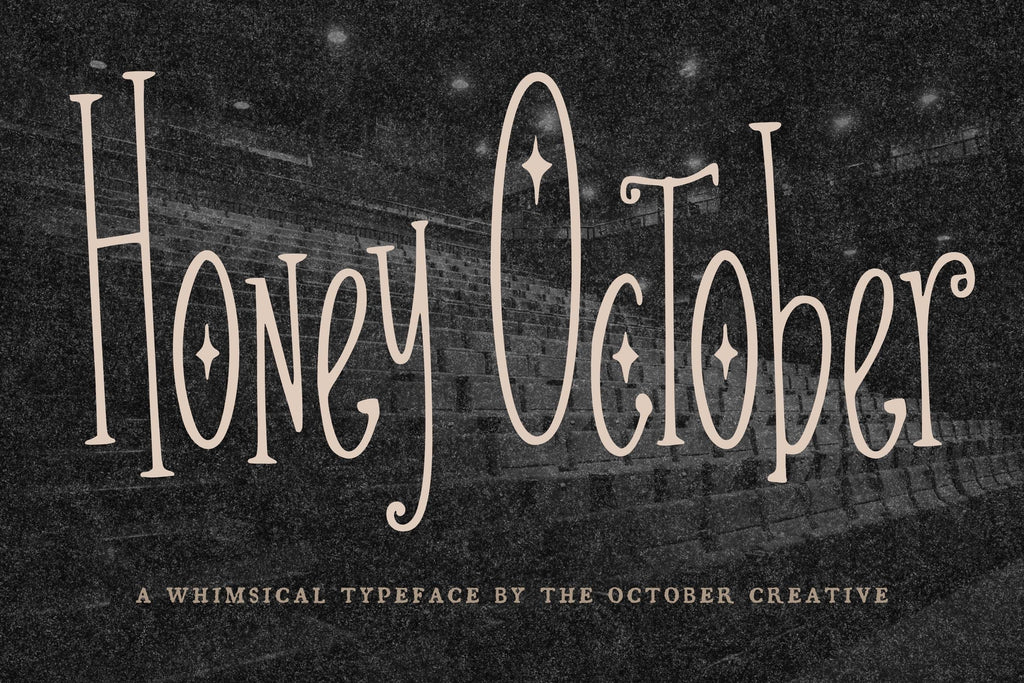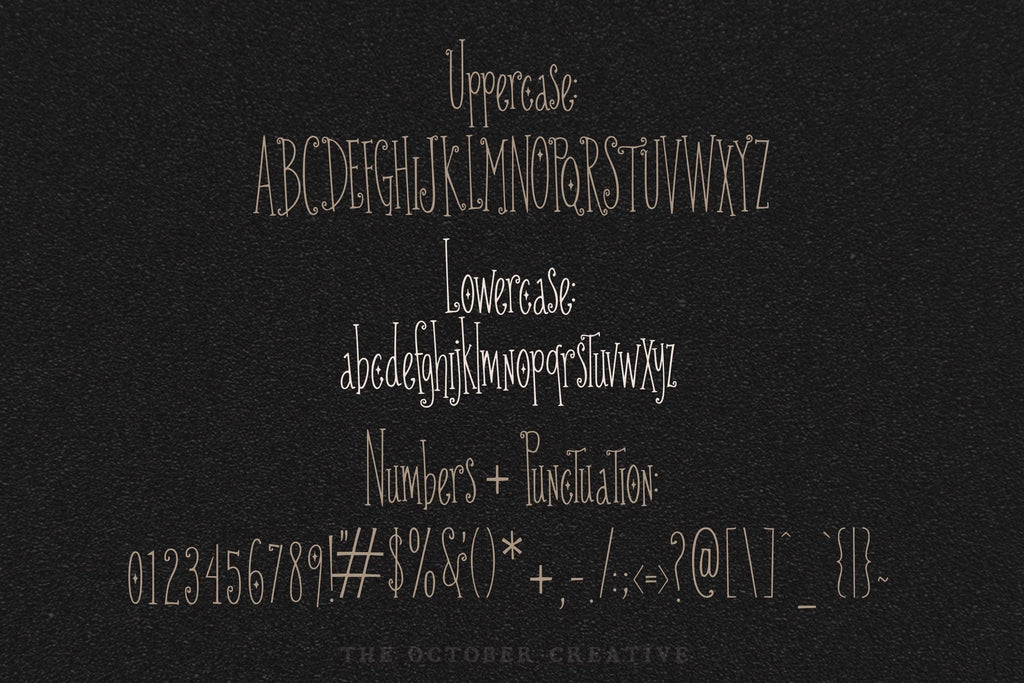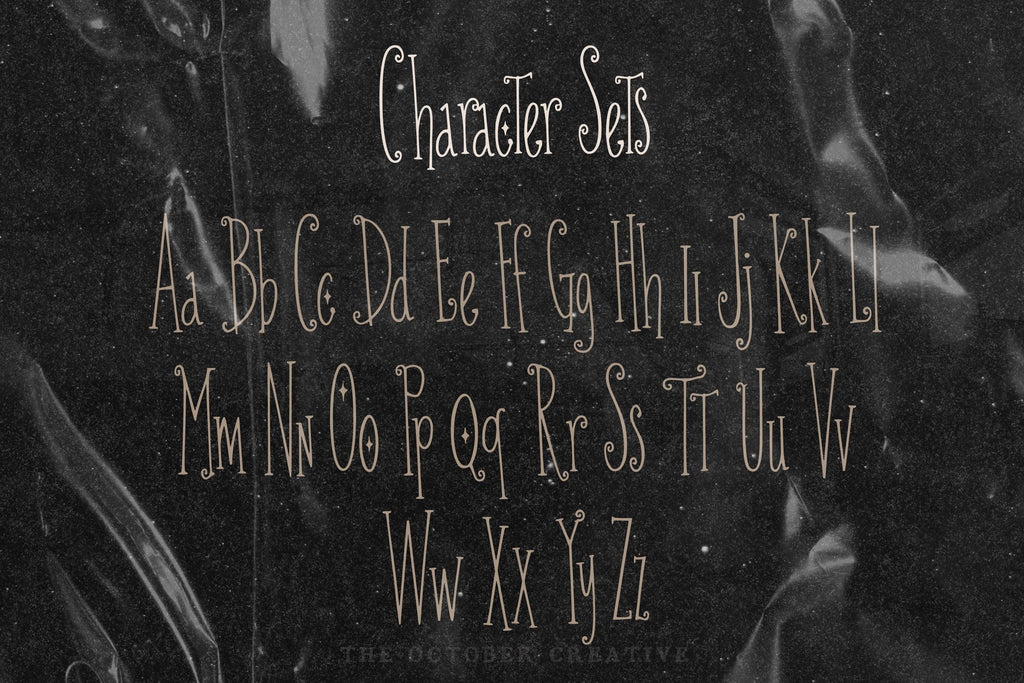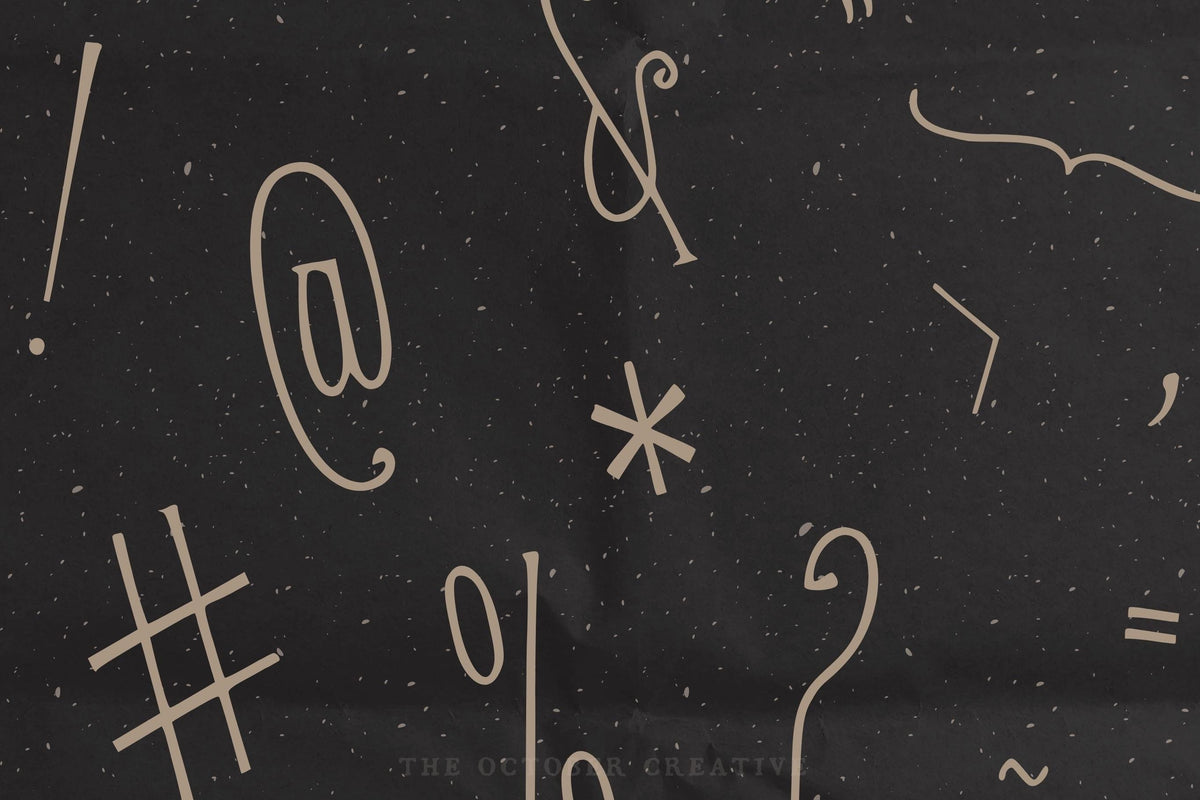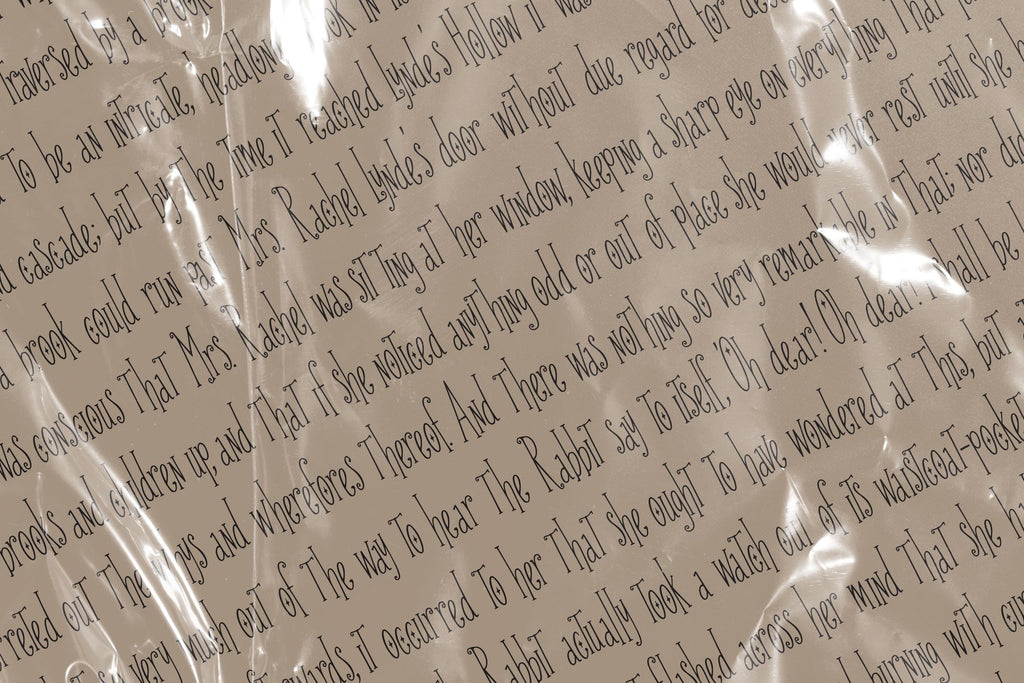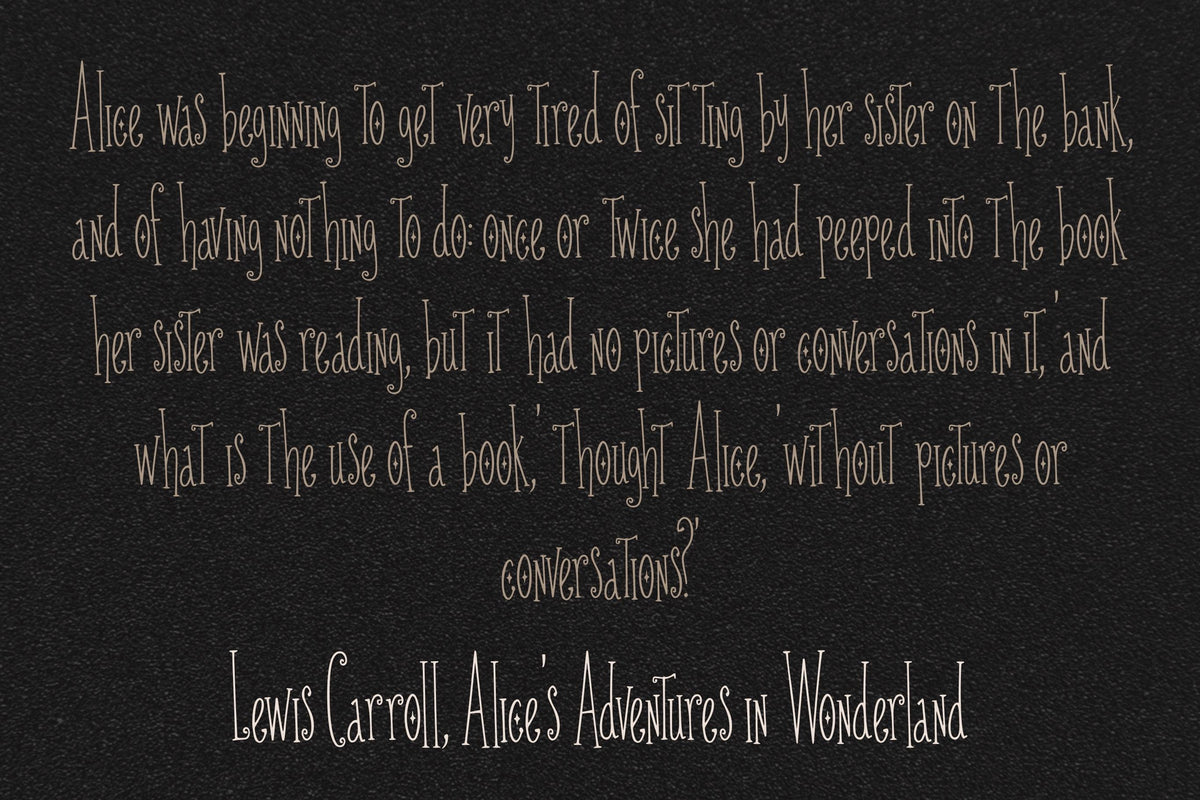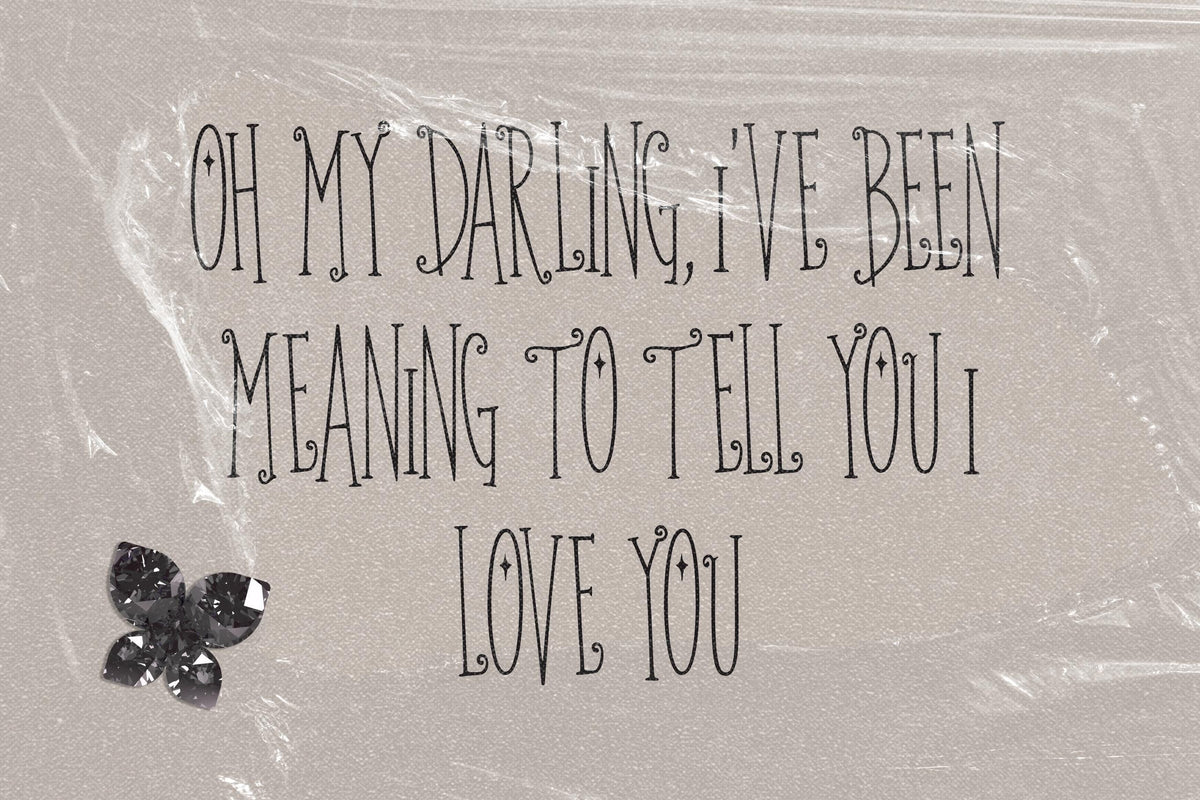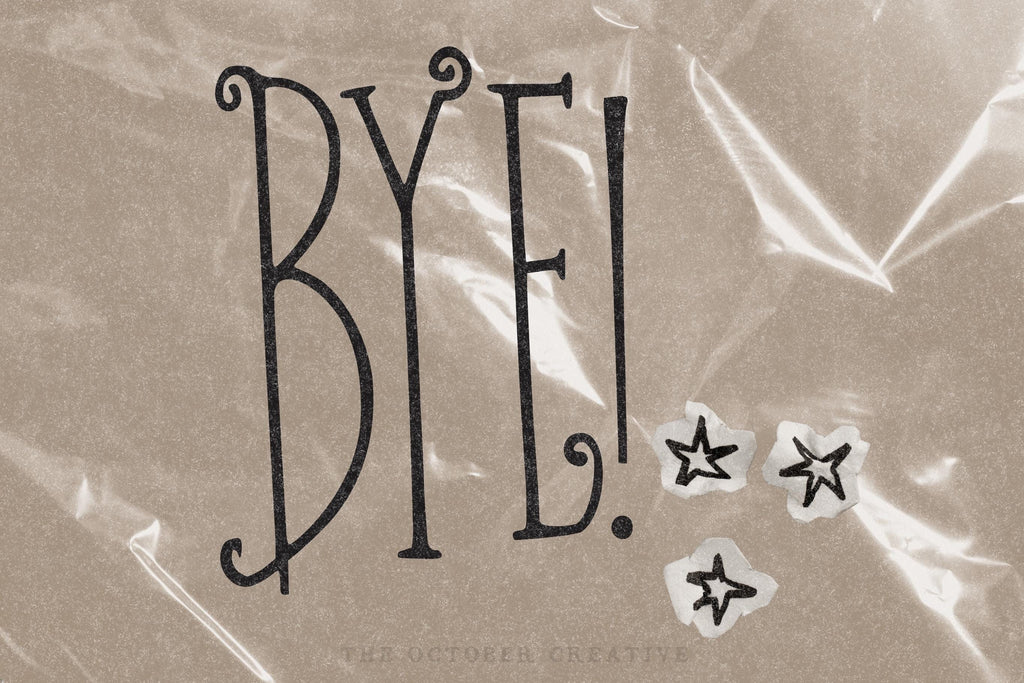
Honey October Font
Honey October is a tall, condensed serif font with four-point sparkle stars set inside some of its round letters. It's made for fall wedding invitations, autumn menus, Halloween cards, and celestial prints.